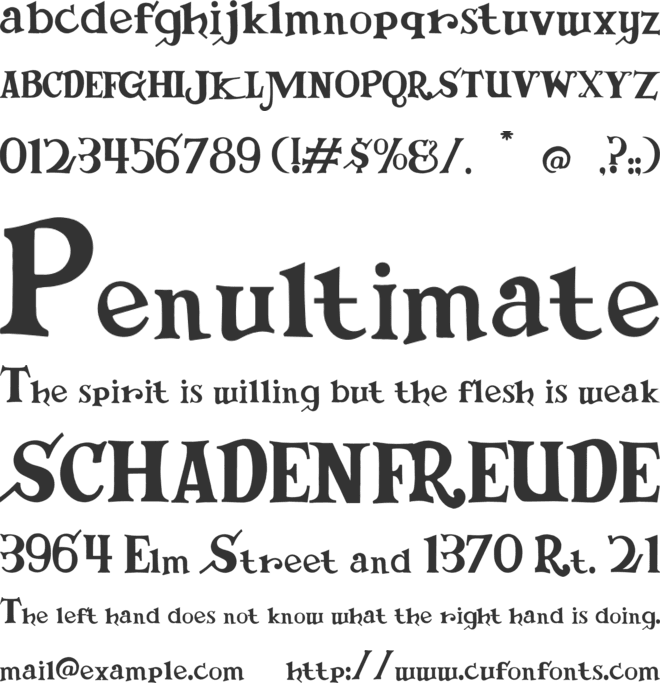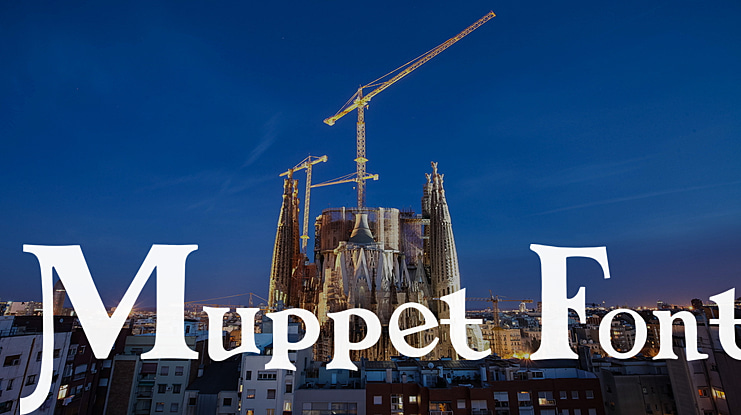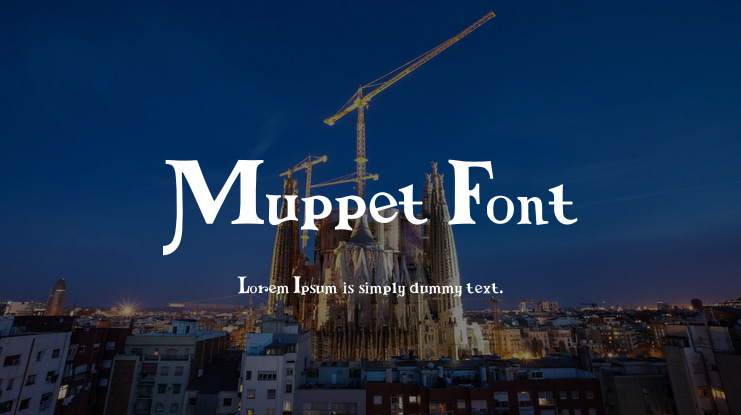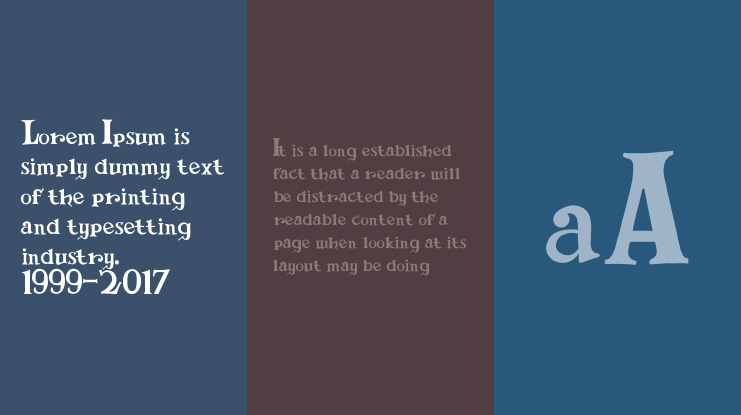
Muppet Font
A fan made creation based off the Muppet Show logo from 1976, The Muppet Font is a typeface made up from different merchandise containing custom made letters to make up a working typeface, with original letters and numbers added on as a bonus.